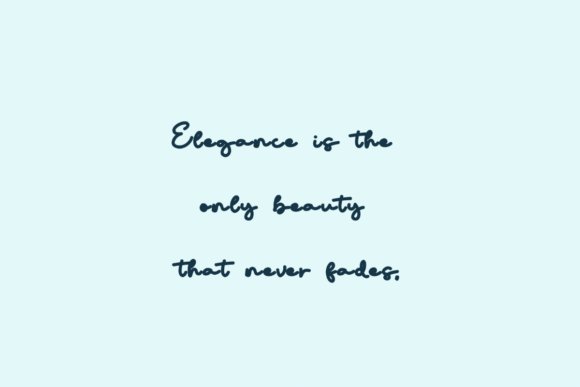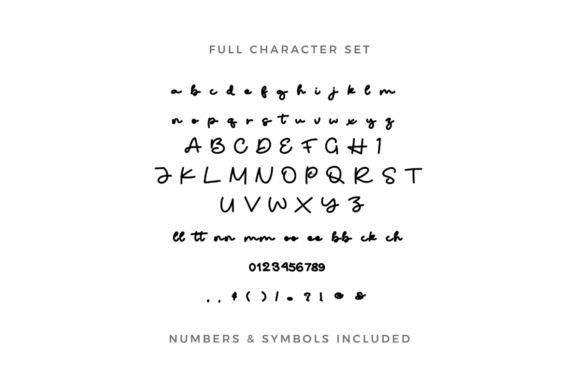
Introducing Beryl: The Elegant Handwritten Font that Brings Charm to Your Designs
In the world of typography, few fonts manage to capture the essence of handwriting and hand lettering as beautifully as Beryl. This stunning script font is a masterful blend of artistry and elegance, making it the perfect addition to any creative project. With its unique flair and intricate curves, Beryl is sure to leave a lasting impression on your audience.
The Beauty of Handwritten Typography
Handwritten typography has a way of adding a personal touch to any design. It’s a way to convey emotion and personality, making your message more relatable and engaging. Beryl font takes this concept to the next level with its meticulously crafted letters, each one showcasing the subtle nuances of handwriting. From the gentle swirls of the cursive letters to the delicate connections between words, Beryl is a true celebration of handwritten typography.
What Makes Beryl So Special?
So, what sets Beryl apart from other script fonts? For starters, its unique blend of handwriting and hand lettering techniques creates a distinctive look that’s both elegant and approachable. The font’s intricate curves and subtle flairs add a level of sophistication, making it perfect for high-end branding, packaging, and advertising projects. Additionally, Beryl’s carefully crafted letterforms ensure excellent readability, making it suitable for both headlines and body text.
Whether you’re a designer, crafty DIY enthusiast, or social media influencer, Beryl font is an excellent choice for any creative project. Use it to add a touch of elegance to your branding, create eye-catching packaging, or craft engaging social media graphics. Beryl’s versatility ensures it will work seamlessly across various mediums, from digital platforms to print materials.
Key Features of Beryl Font
- Unique Handwritten Style: Beryl’s distinctive handwriting style sets it apart from other script fonts, adding a personal touch to your designs.
- Elegant and Refined: The font’s intricate curves and subtle flairs create a sophisticated look, perfect for high-end branding and advertising projects.
- Excellent Readability: Beryl’s carefully crafted letterforms ensure excellent readability, making it suitable for both headlines and body text.
- Versatile: Use Beryl across various mediums, from digital platforms to print materials, and across different creative projects.
Tips for Using Beryl Font Effectively
To get the most out of Beryl font, here are a few tips to keep in mind:
- Pair it with contrasting fonts: Combine Beryl with sans-serif fonts to create visual interest and highlight the font’s unique features.
- Use it for headlines and titles: Beryl’s elegant style makes it perfect for grabbing attention and adding a touch of sophistication to your headlines and titles.
- Experiment with colors and textures: Beryl’s versatility allows it to work well with various colors and textures, so don’t be afraid to experiment and find the perfect combination for your design.
In conclusion, Beryl font is a true gem in the world of typography. Its unique blend of handwriting and hand lettering techniques, combined with its elegance and refinement, make it an excellent choice for any creative project. Whether you’re a designer, crafty DIY enthusiast, or social media influencer, Beryl is sure to bring charm and character to your designs. So why settle for ordinary fonts when you can add a touch of elegance with Beryl?
Get Ready to Elevate Your Designs with Beryl